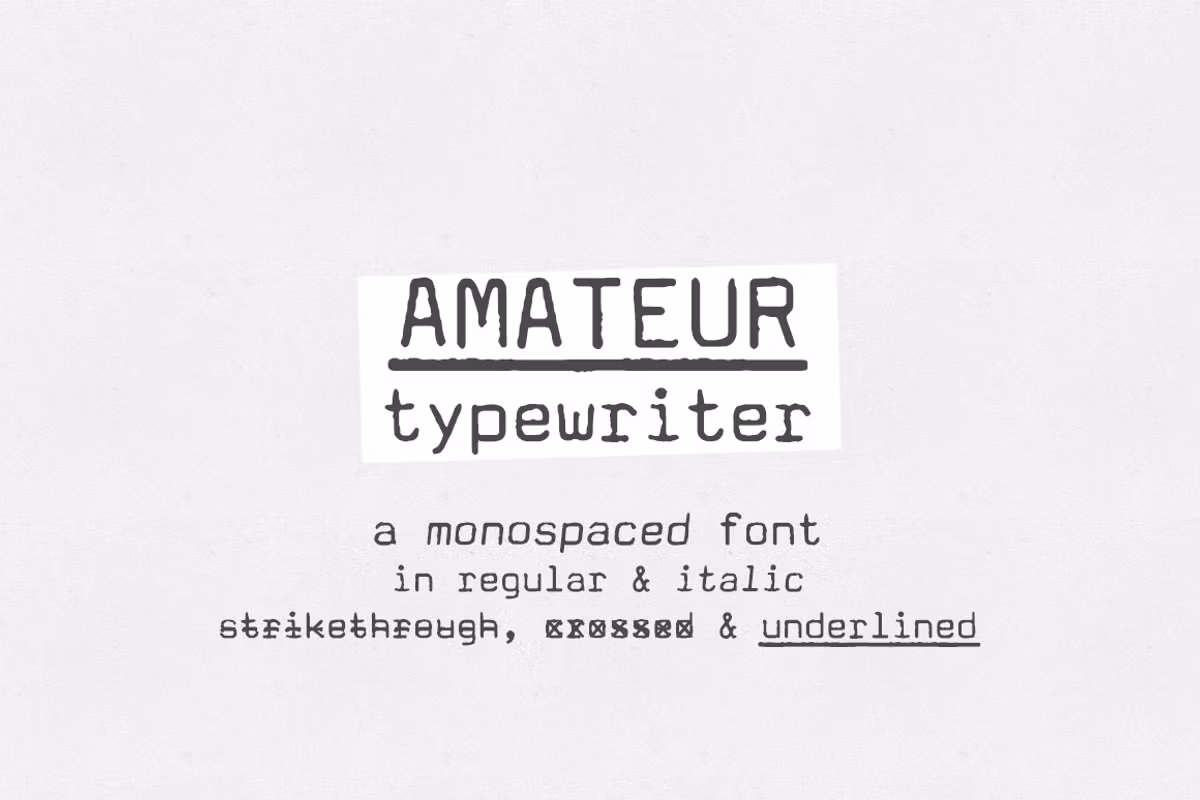
Please note, you must purchase this font for commercial use. However, you can easily download Amateur Typewriter Monospaced Font Free Download for personal use and testing purposes. Amateur Typewriter Monospaced Font is a vintage-inspired typewriter font with a monospaced design, perfect for projects that need a classic, retro feel. Its uniform letter spacing makes it ideal for coding, journaling, retro-themed designs, and any project where readability is key. Whether you're designing for a creative campaign, a vintage logo, or crafting a nostalgic piece, Amateur Typewriter Monospaced Font Free Download brings an old-school charm to your typography. Download Amateur Typewriter Monospaced Font Free Download today and explore its potential before opting for a commercial license.